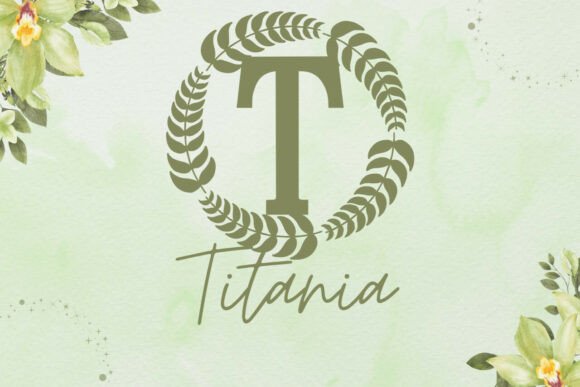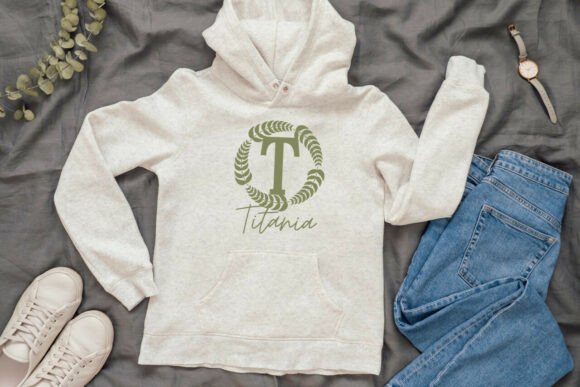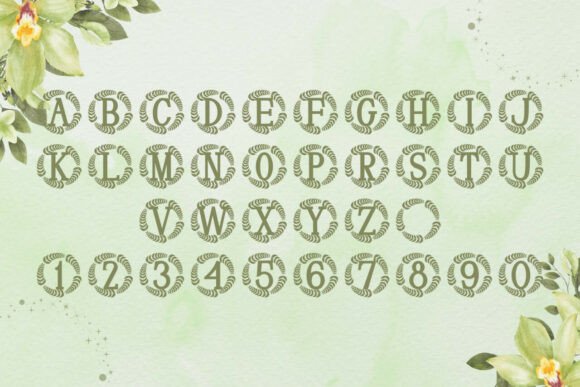
Introduction to Seravine Monogram Font
Do you remember the excitement of designing your own wedding stationery or creating a custom logo for your new business? It’s that moment when everything comes together, and your creative project starts to take shape. For designers, there’s nothing quite like the thrill of bringing a concept to life. And, what better way to add a touch of elegance and sophistication than with a beautifully crafted monogram?
Enter the Seravine Monogram Font, a game-changing design resource that turns simple initials into polished emblems that read fast. With its smooth lines and open curves, this high-quality font is perfect for creating custom logos, wedding suites, and premium packaging that exudes luxury and refinement.
Key Features of Seravine Monogram Font
- Unique, modern monogram design with a transparent background for flexibility
- Perfect for wedding invitations, social media graphics, and other design projects requiring a stylish touch
Honest Review: Seravine Monogram Font
As a designer, I’m always on the lookout for high-quality design resources to elevate my creative projects. Recently, I stumbled upon the Seravine Monogram Font, and I’m excited to share my honest review with you.
- The Seravine Monogram Font offers a beautiful, elegant design that’s perfect for adding a touch of sophistication to your projects.
- The font is highly customizable, allowing you to adjust the size, color, and even the transparency of the background to suit your needs.
- The font is also available in a transparent background version, which is a huge plus for designers who want to create visually striking designs.
- The font may not be suitable for all types of projects, especially those that require a more casual or playful tone.
- The font can be a bit overwhelming when used in large quantities, so it’s essential to use it judiciously.
Overall, I’m impressed with the Seravine Monogram Font. Its high quality and versatility make it a valuable addition to any designer’s toolkit. While it may have some limitations, I believe it’s a great design resource for those looking to add a touch of elegance to their projects.
The Seravine Monogram Font is a high-quality design resource ideal for creative projects. This free download offers a unique and elegant monogram style, perfect for adding a touch of sophistication to your designs.
The Seravine Monogram Font is ideal for a variety of creative projects, including:
- Business logos and branding
- Personalized gifts and stationery
- Design projects requiring a touch of elegance